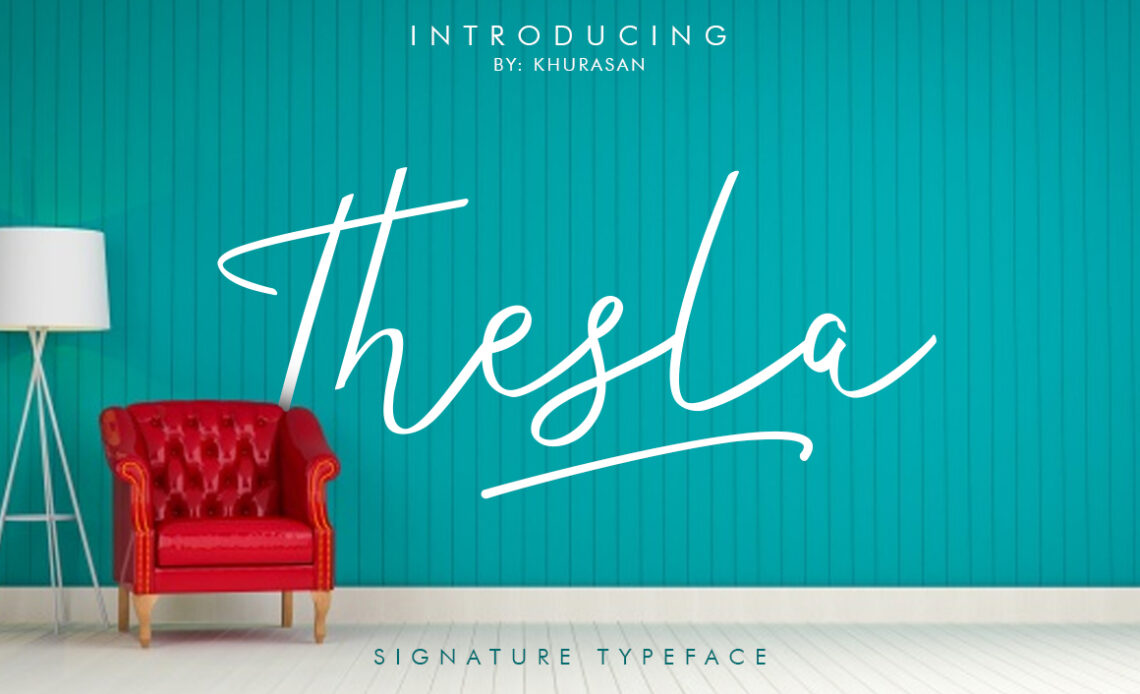
Welcome to the world of Thesla Script, a captivating script font that will enchant your designs with its delicate strokes and graceful curves. Immerse yourself in the beauty of this extraordinary font, carefully crafted by skilled artisans at Khurasan, renowned for their impeccable attention to detail. Thesla Script is more than just a font; it's an artistic masterpiece that will elevate your projects to new heights of sophistication and elegance.
Indulge in the allure of Thesla Script's exquisite thin lines, meticulously designed to evoke a sense of lightness and airiness. Each character dances across the page with a unique charm, adding a touch of whimsical magic to your creations. Whether you're a seasoned designer or just starting your creative journey, Thesla Script is the perfect companion for adding a touch of elegance and sophistication to your designs.
Unleash your creativity with Thesla Script's versatility, effortlessly adapting to a wide range of projects. From enchanting invitations to captivating social media posts, Thesla Script will leave a lasting impression on your audience. Its graceful curves and delicate lines will captivate readers, drawing them into your words and images. Experience the transformative power of Thesla Script as it elevates your designs and captivates hearts.
Thesla Script is not just a font; it's an experience. Its enchanting beauty will transport you to a world of imagination and creativity, where your designs come to life with a captivating elegance. Embrace the boundless possibilities of Thesla Script and watch as your projects transform into works of art.